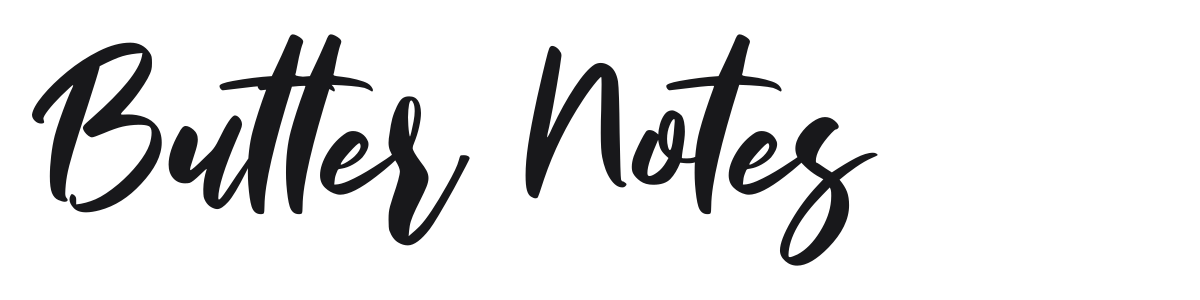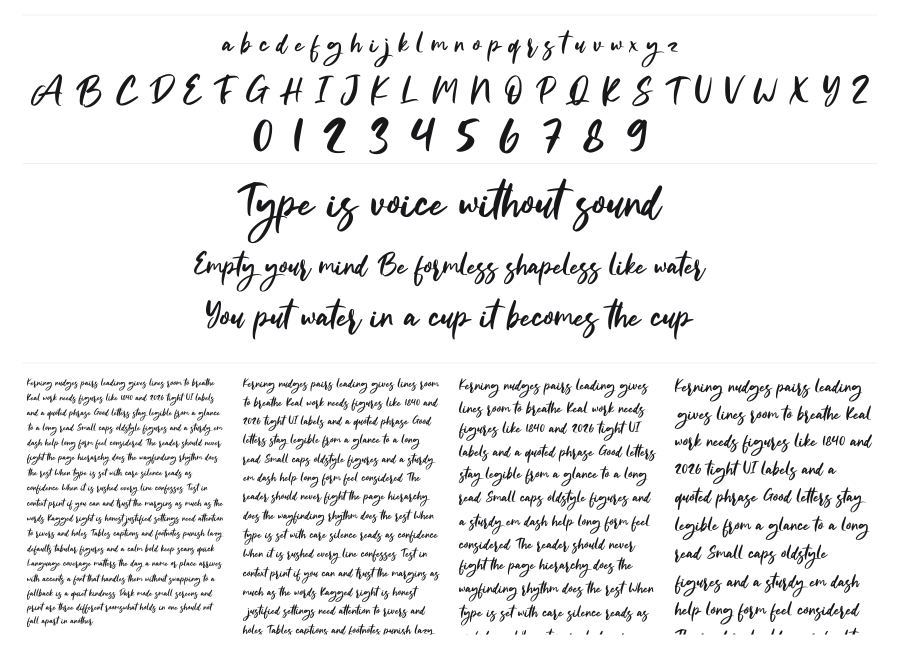
Butter Notes
Butter Notes is a casual brush script with fluid, connected strokes and expressive ink contrast between thick stems and fine hairlines. Long ascenders and descenders give it a lively, organic rhythm that feels natural and unforced. It has that effortless handwritten quality that works across branding, packaging, and social media graphics.